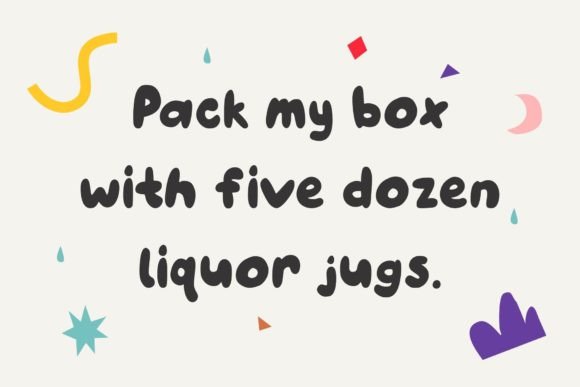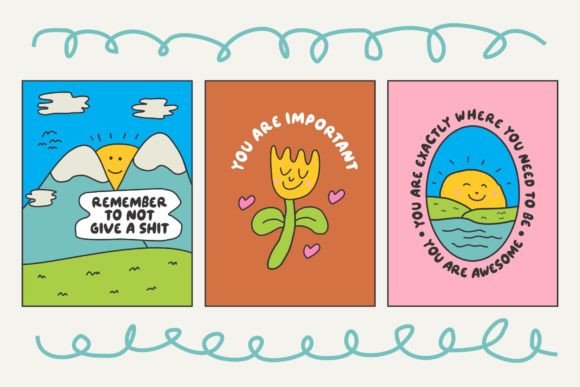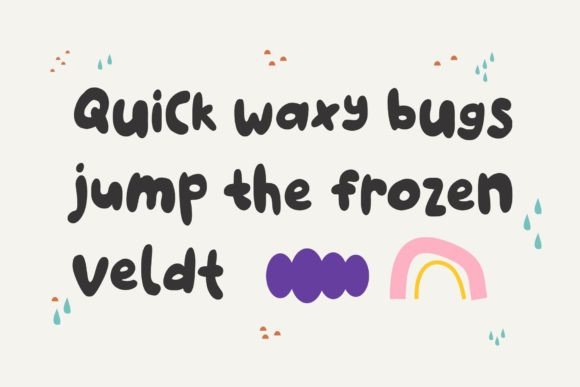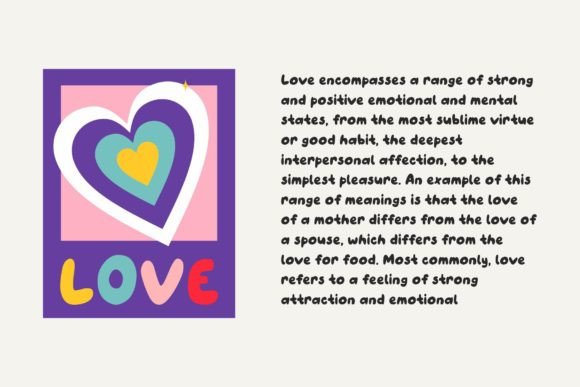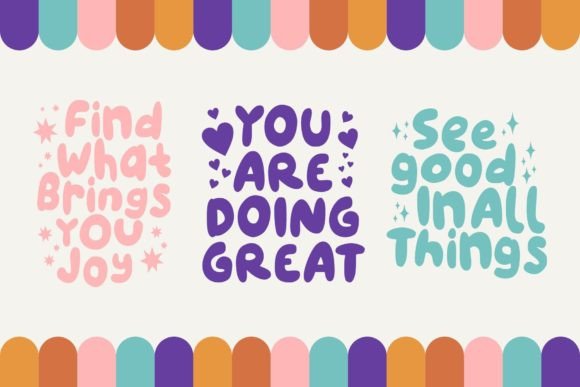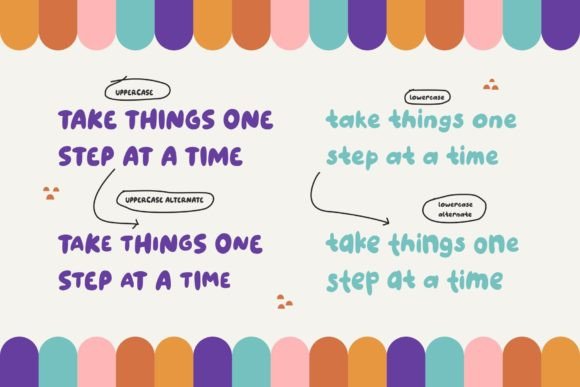
Introduction to Fluffapalooza Font
Have you ever found yourself doodling in the margins of a notebook, trying to capture the perfect whimsical character or scribbling out a handwritten font that perfectly captures the essence of your latest creative project? For many designers, this moment of inspiration is the spark that sets their imagination ablaze. And for those who crave a font that embodies the very spirit of creativity, the Fluffapalooza Font is sure to be a game-changer.
This charming handwritten font is more than just a design resource – it’s a key to unlocking a world of high-quality, transparent background designs that exude warmth, personality, and a dash of quirky charm. Whether you’re working on a free download or a paid project, Fluffapalooza Font is the perfect addition to any creative endeavor.
Key Features of Fluffapalooza Font
- Unique, whimsical style with a transparent background, allowing for easy layering and customization.
- Includes a comprehensive character set with over 500 glyphs, including letters, numbers, and symbols.
- Designed at a high resolution of 300 DPI for crisp, clear display on various devices and mediums.
- Perfect for designers and artists looking to add a touch of playfulness and creativity to their work.
Honest Review: Fluffapalooza Font
I recently had the chance to try out the Fluffapalooza Font and I have to say, it’s been a wild ride. This quirky design resource is perfect for adding a touch of whimsy to your next creative project.
- ✨ The high-quality design ensures that your text will stand out on any background.
- ✨ The transparent background option makes it easy to customize and integrate into your design.
- ✨ The font’s playful style is perfect for adding a creative touch to your next project.
- ⚠️ The font may be a bit too quirky for some projects, so be sure to use it sparingly.
- ⚠️ Some users may find the font’s irregularities to be distracting, so it’s best to use it in moderation.
Overall, I’m impressed with the Fluffapalooza Font and I think it’s a great addition to any designer’s toolkit. With a little creativity, this font can add a lot of personality to your next design project.
Transparent Background and High Quality
The Fluffapalooza Font comes with a transparent background, making it ideal for creative projects that require a high level of customization. To ensure high-quality results, use the font at the recommended size and resolution.
The Fluffapalooza Font is commonly used in creative projects such as infographics, social media graphics, and presentations. Its high-quality design and transparent background make it an ideal choice for designers who want to add a professional touch to their work.
Comparison to Fluffapalooza Font: Whimsy Script Font has a more delicate and intricate design, whereas Fluffapalooza Font is bolder and more playful.